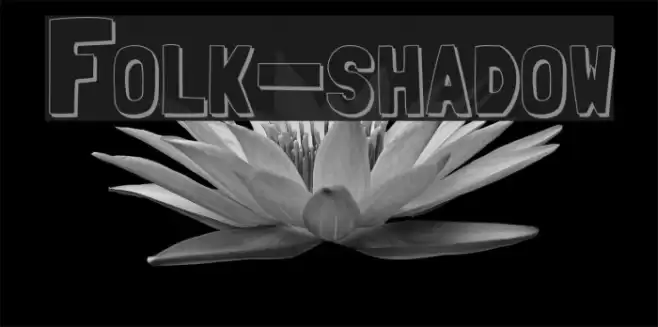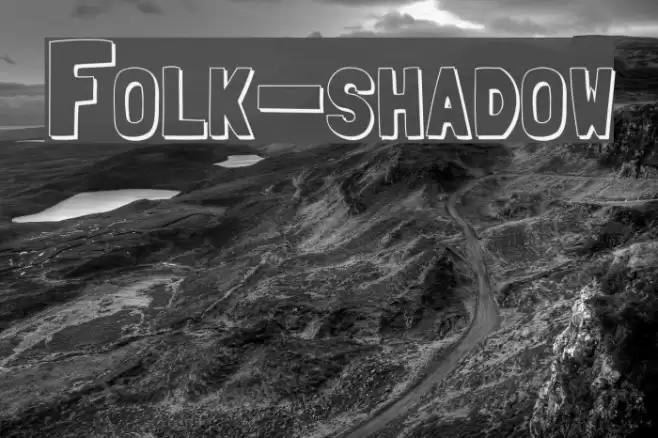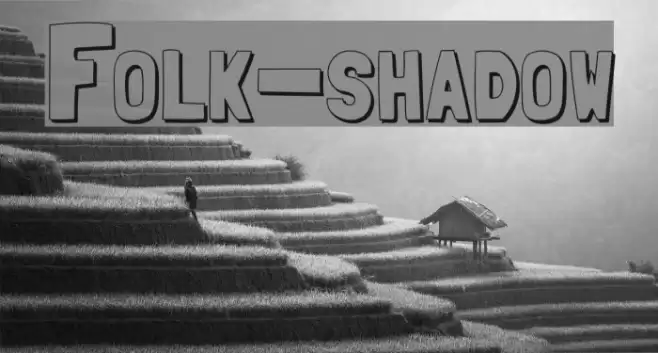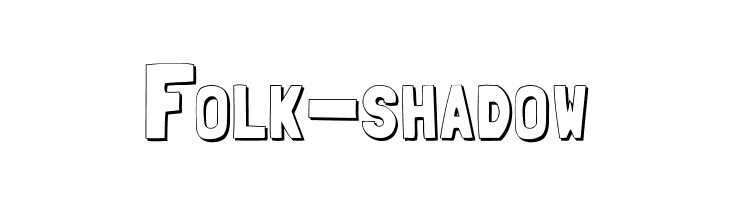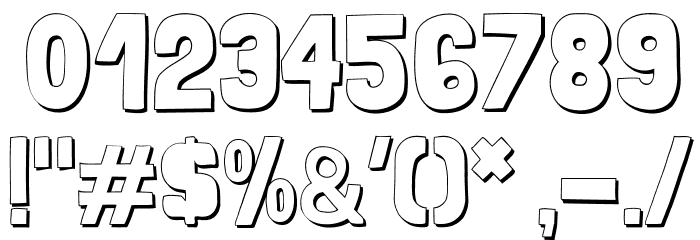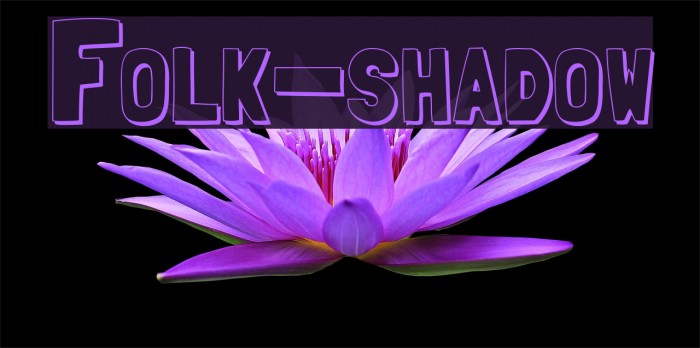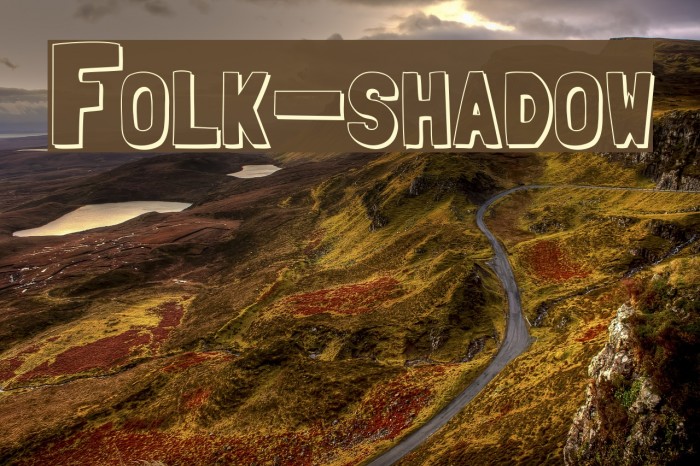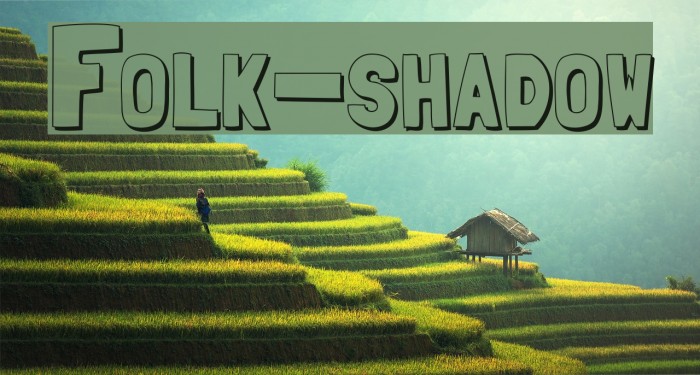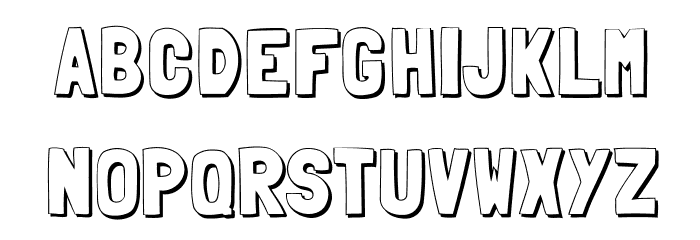
Folk-shadow Font
Folk-shadow Description
This font features a bold, playful design with a distinct shadow effect that adds depth and dimension to each character. The letters are uppercase and have a slightly rounded, blocky appearance, making them stand out prominently. The shadow is consistent across all characters, providing a cohesive look. This style is eye-catching and ideal for creating a sense of fun and excitement in design projects. The numbers and special characters maintain the same bold and shadowed style, ensuring uniformity throughout the font set.
A bold, playful font with a shadow effect, perfect for eye-catching designs from Cartoon fonts.
- Proposed Projects: Ideal for children's book covers, playful posters, event invitations, and any project needing a fun, engaging typeface.
- Overall Style: Playful, Fun, Decorative
- Use Case: Headlines, Posters, Logos